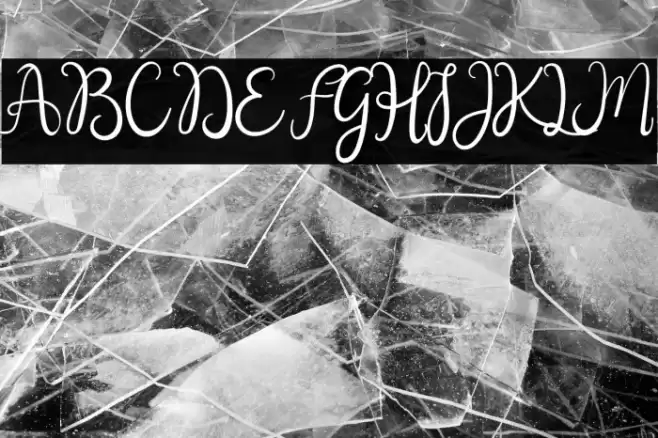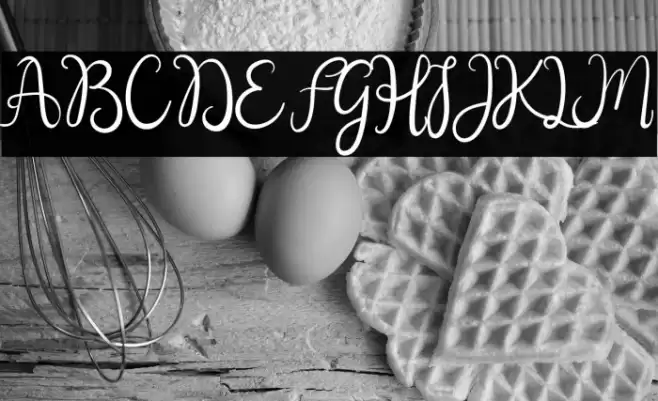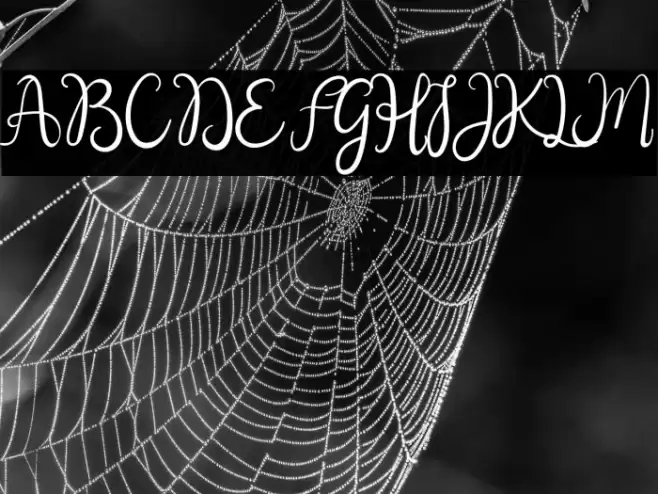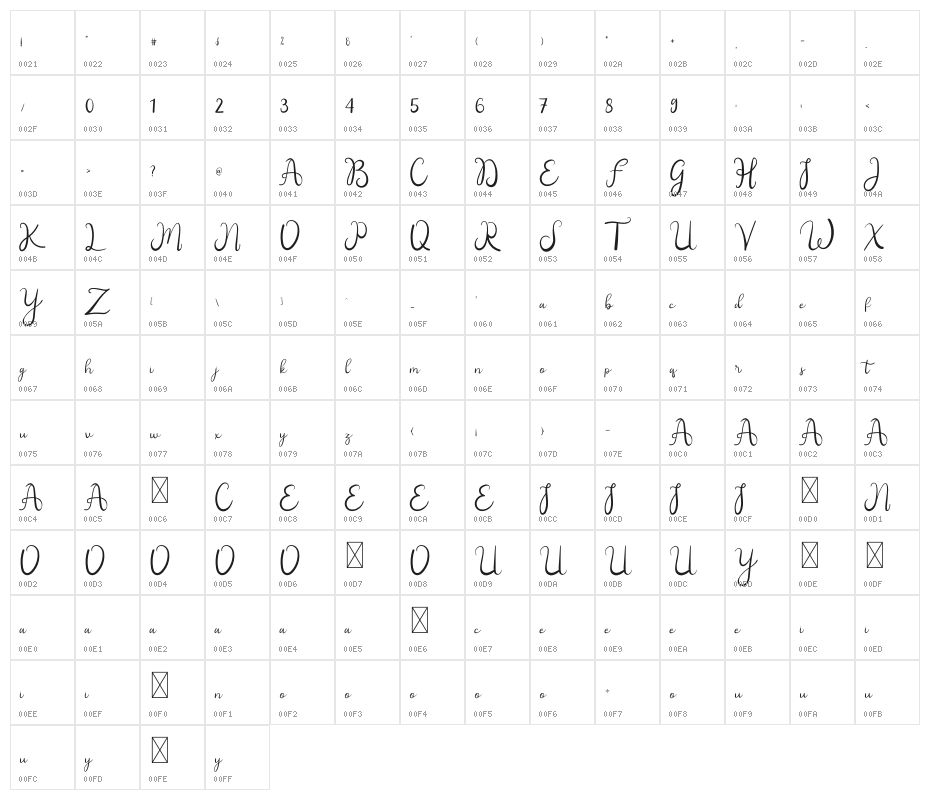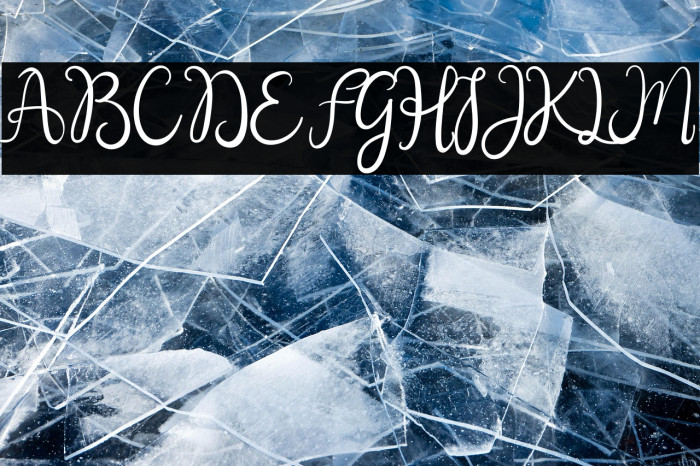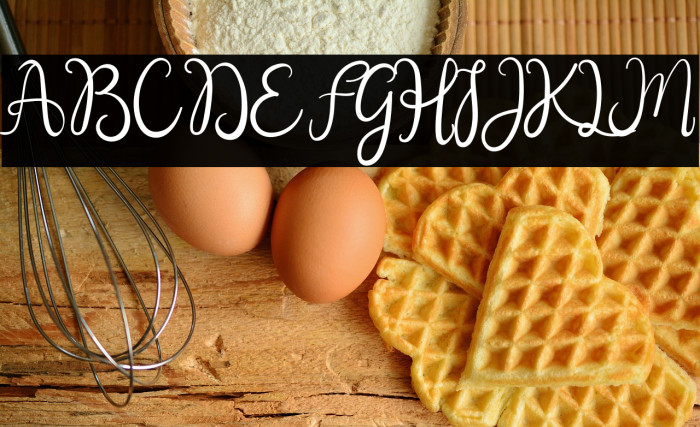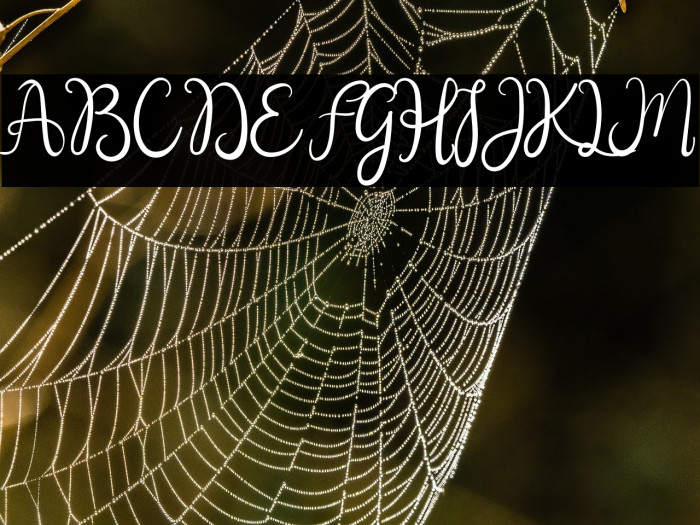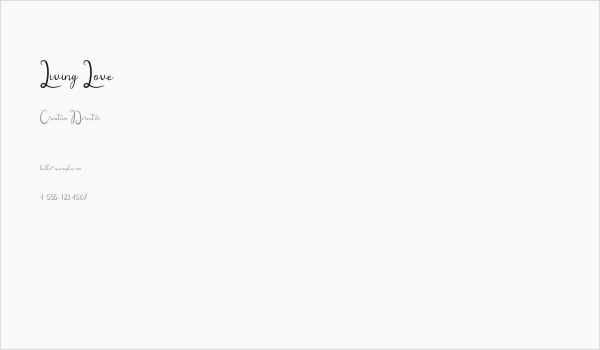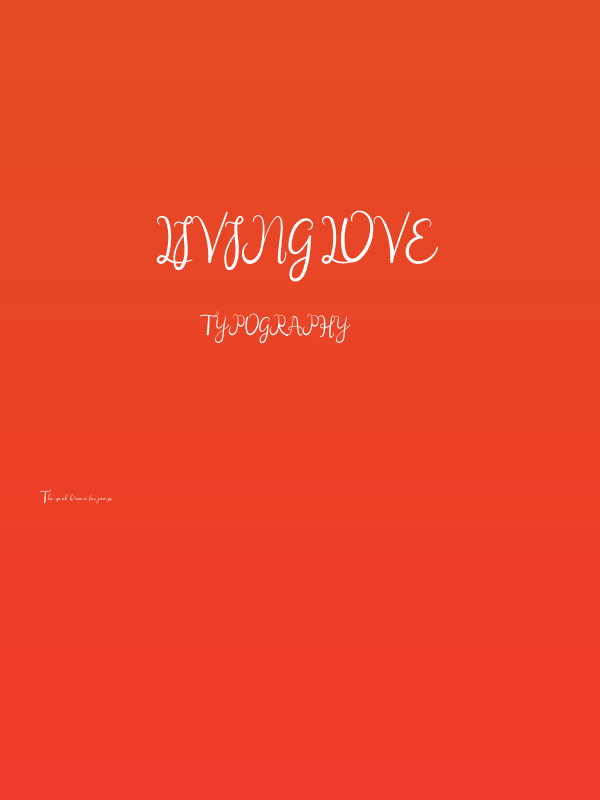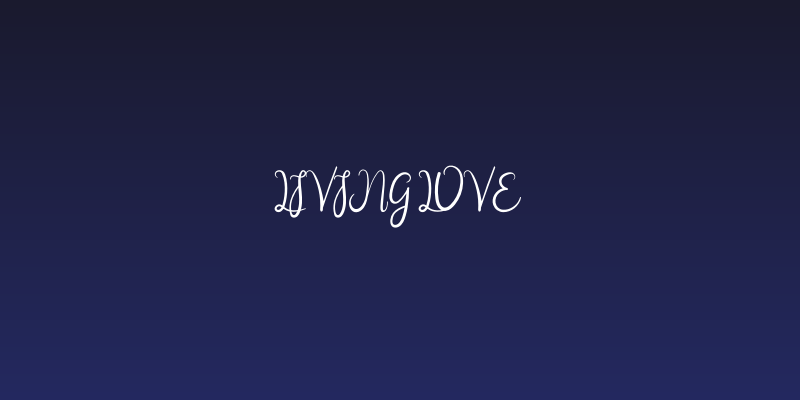
Living Love Font
Living Love Description
This font exudes a charming and elegant script style, characterized by its flowing, cursive letterforms that convey a sense of sophistication and grace. The uppercase letters are bold and slightly exaggerated, with playful loops and swirls that add a decorative touch. The lowercase letters maintain a consistent flow, enhancing readability while preserving the font's artistic flair. The numerals are clear and distinct, complementing the overall aesthetic. Special characters are thoughtfully designed to match the font's whimsical yet refined nature, making it versatile for various creative applications.
A charming and elegant script font with flowing, cursive letterforms from Uncategorized fonts.
- Font: Living Love
- Proposed Projects: Ideal for wedding invitations, greeting cards, branding projects, and elegant packaging designs.
- Use Case: Logos, Invitations, Decorative Text